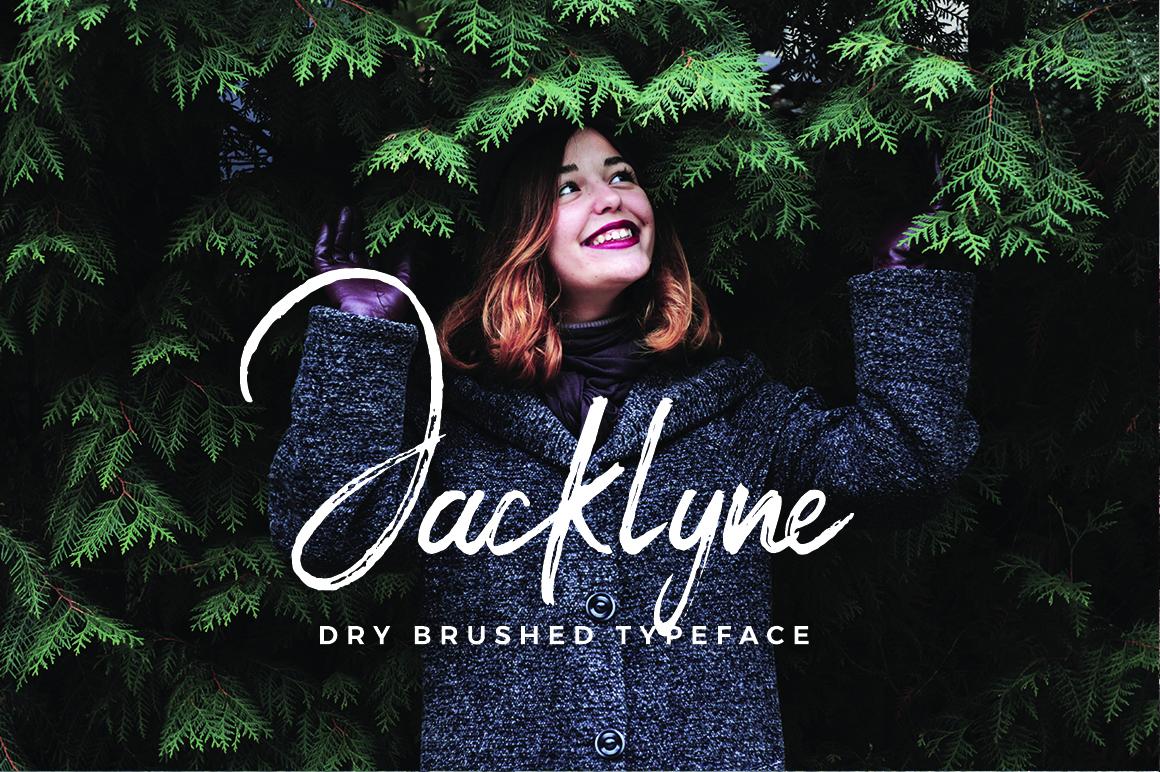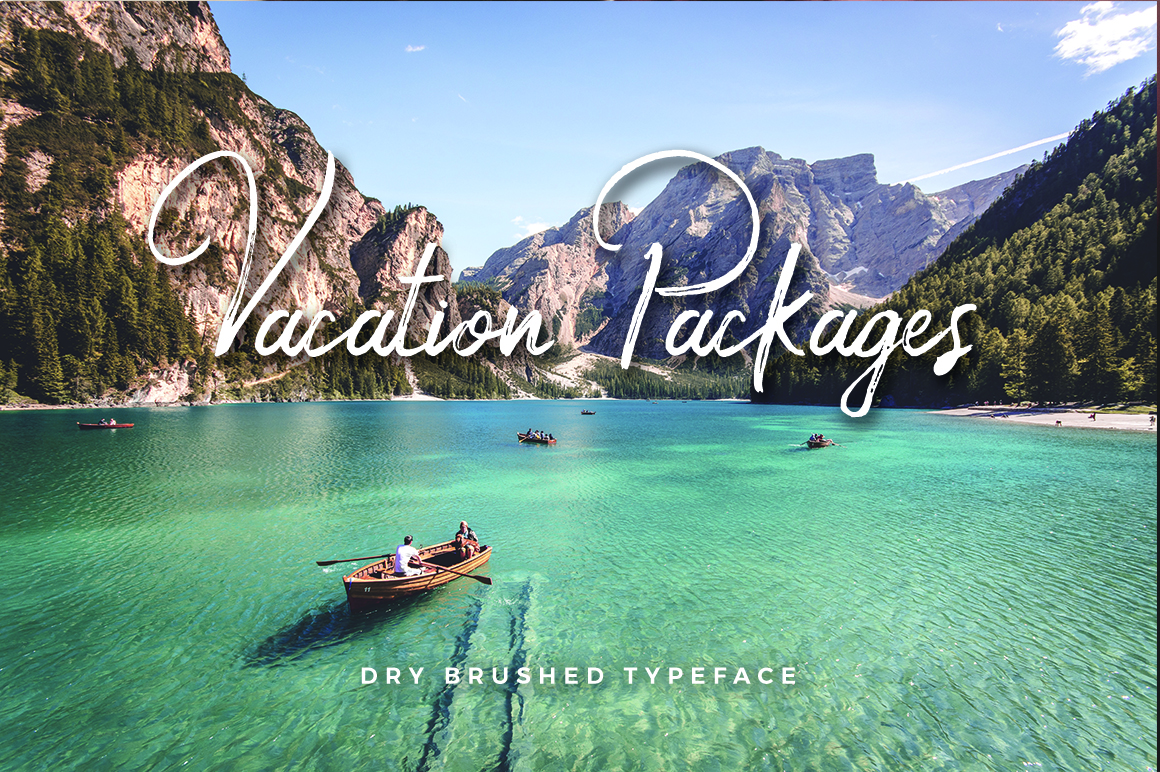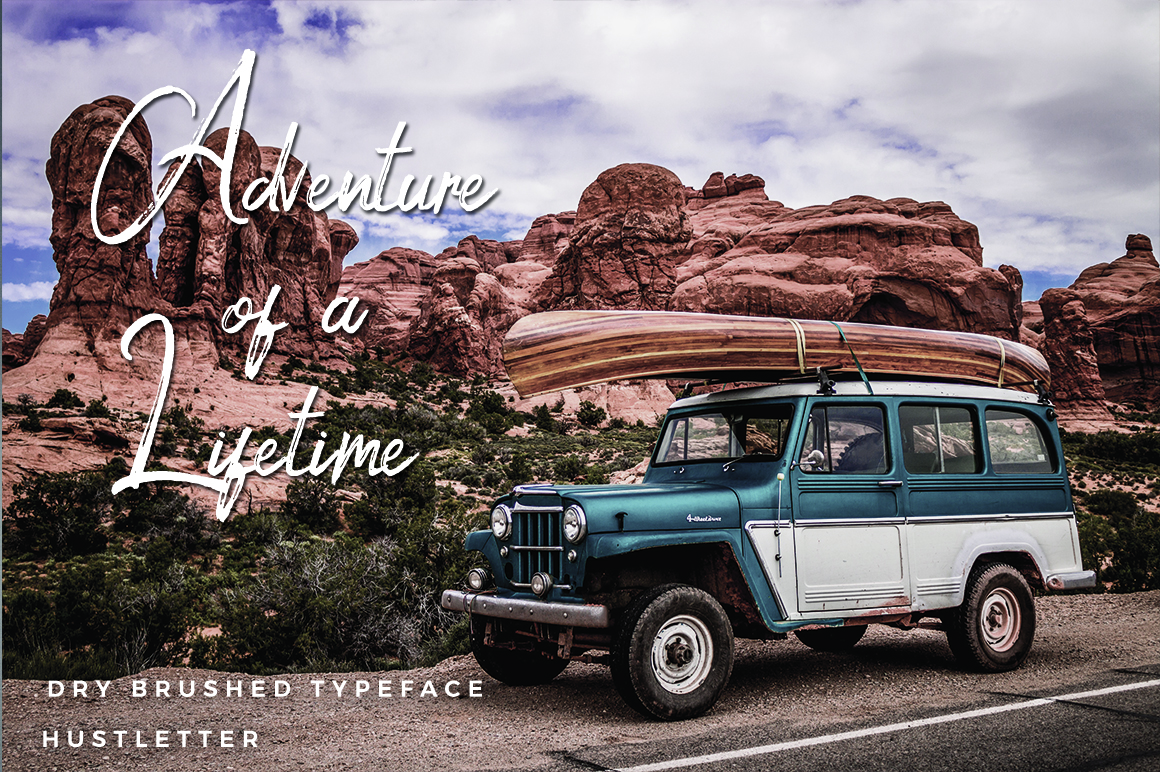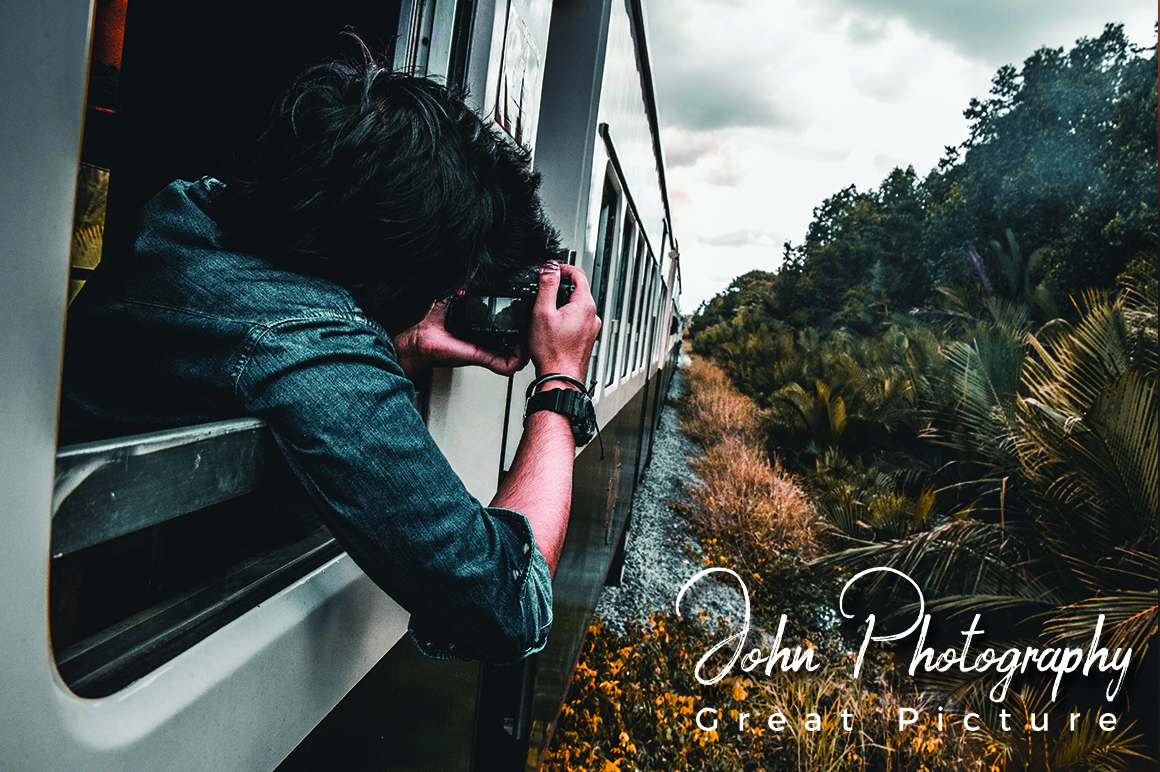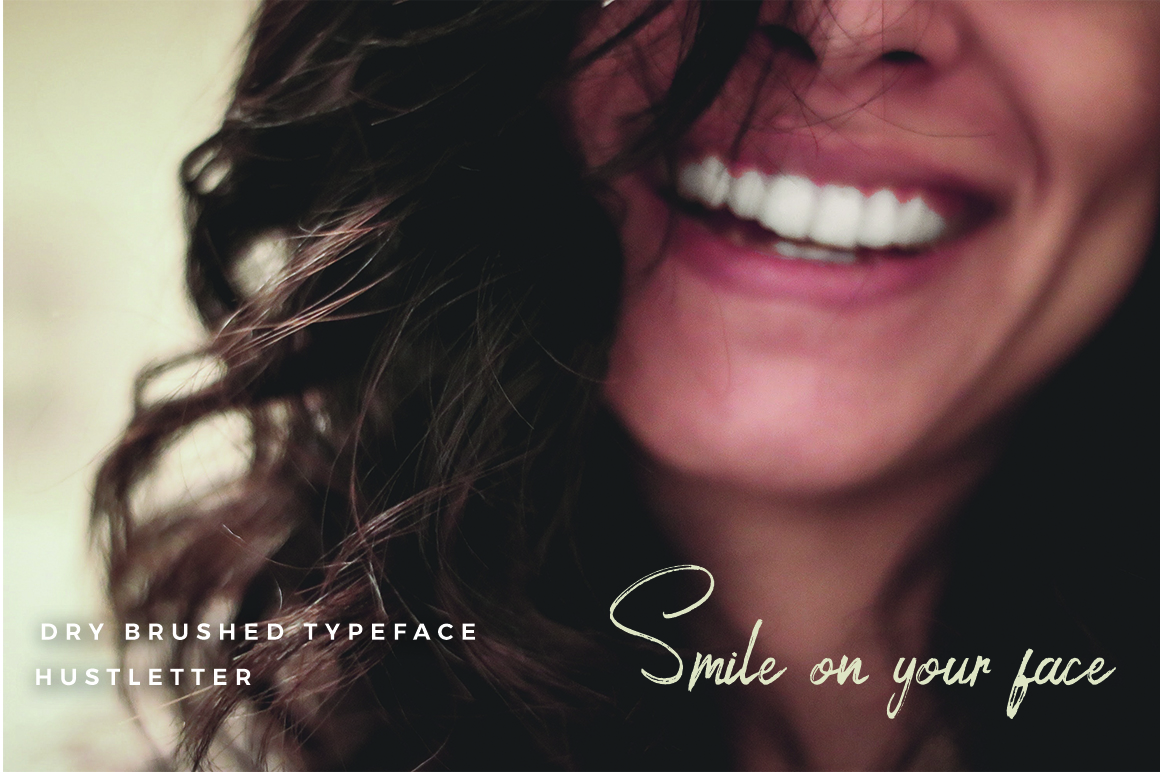
Jacklyne Font
About Jacklyne Font
Jacklyne is a gorgeous and rustic brush script font. This font is hip and fresh, and can really complement textured and friendly designs. This font reads well, and looks best in headlines or displays.